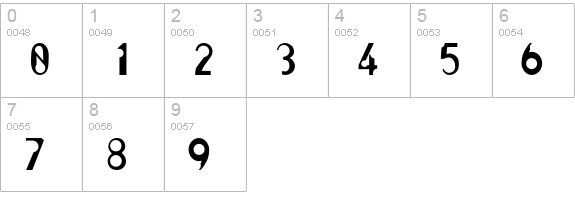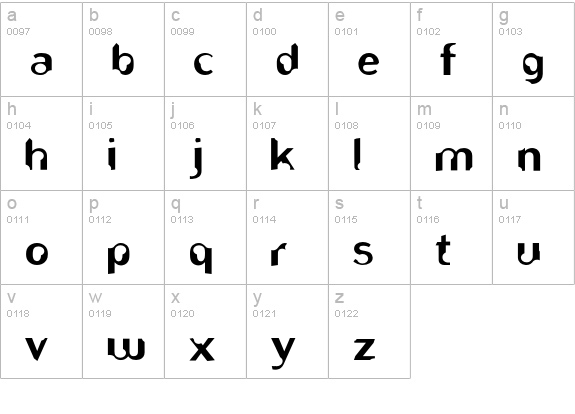
RIDdler Font Details
Introducing RIDdler font, an intricately crafted typeface that will leave you captivated with its unique charm and versatility. Designed with meticulous attention to detail, RIDdler font boasts a perfect balance between elegance and boldness, making it ideal for a wide range of creative projects. With its captivating curves and distinctive letterforms, RIDdler font effortlessly captures attention and adds a touch of sophistication to any design. Whether you're creating eye-catching logos, stylish branding materials, elegant invitations, or engaging social media graphics, this font is sure to elevate your creations to the next level. What sets RIDdler font apart is not just its stunning aesthetic but also its accessibility. We believe that creativity should be free, and that's why RIDdler font is freely available to download at FontsMarket.com. By making this extraordinary font accessible to all, we hope to inspire a world of limitless creativity and empower designers, artists, and enthusiasts to bring their visions to life. Embrace the endless possibilities that RIDdler font offers and let your imagination run wild. Whether you're a seasoned designer or just starting your creative journey, this font will be your trusted companion, helping you express your unique ideas with flair and elegance. So why wait? Download RIDdler font today from FontsMarket.com and unlock the gateway to boundless creativity. Let the letters dance across your designs and watch as they effortlessly transform your projects into works of art. With RIDdler font, the possibilities are truly endless.